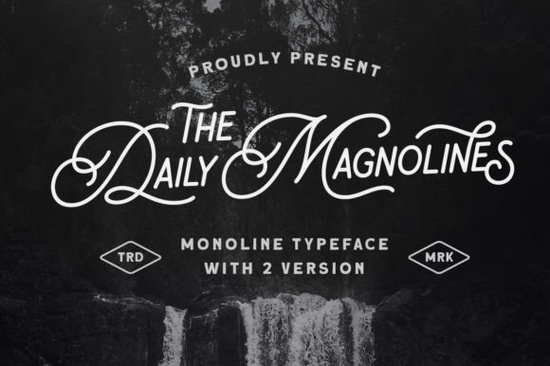
If you're looking for a display font that balances elegance with a handcrafted feel, Daily Magnolines Font might be exactly what your next project needs. Designed with clean monoline strokes and a subtly textured alternate version, it brings warmth and personality without sacrificing readability. Whether you’re designing wedding invitations, branding a boutique product line, or creating eye-catching social media posts, this typeface adapts smoothly across both print and digital formats.
What sets Daily Magnolines apart is its dual personality: the standard version offers crisp, modern lines perfect for clean layouts, while the rough variant adds just enough organic texture to feel artisanal ideal for projects that benefit from a tactile, human touch. It’s especially useful for small businesses and crafters who want their designs to stand out without leaning into overly decorative or trendy styles.
When should you use Daily Magnolines in your designs?
This font shines in applications where visual impact matters but clarity can’t be compromised. Think:
- Branding materials like logos, business cards, or packaging for lifestyle, beauty, or food brands
- Event stationery such as wedding suites, baby shower invites, or holiday cards
- Social media graphics that need a refined yet approachable headline font
- Print-on-demand products like mugs, tote bags, or wall art where typography carries the message
Because it’s a monoline font (meaning consistent stroke width), it scales well from tiny labels to large posters without losing its character. And unlike script fonts that can become illegible at small sizes, Daily Magnolines remains sharp and legible even in compact layouts.
How does it compare to other display fonts?
Not all display fonts offer the same balance of style and usability. For example, if you’ve used something like Brother Garage, you know it leans into a bold, industrial vibe great for masculine or retro themes, but not ideal for delicate or upscale aesthetics. On the other hand, Thick Jungle brings playful, rounded energy that works well for kids’ products or casual branding.
Daily Magnolines sits comfortably in the middle: contemporary but timeless, structured but not rigid. If you prefer something with more edge, Punk Cyber delivers high-contrast futurism, while University Font offers collegiate charm. But when your goal is understated sophistication with room for creative expression, Daily Magnolines stands out for its versatility.
Tips for pairing Daily Magnolines with other typefaces
Since it’s a display font, Daily Magnolines works best as a headline or accent typeface not for long paragraphs. Pair it with a clean, neutral sans-serif (like Montserrat, Lato, or Inter) for body text to maintain readability and visual hierarchy. Avoid pairing it with other highly stylized fonts; the goal is contrast, not competition.
If you’re using the rough version, keep backgrounds simple light textures or solid colors let the subtle imperfections shine without overwhelming the design. For digital use, test how it renders on different screens; sometimes slight adjustments to tracking (letter spacing) improve legibility at smaller sizes.
Who is this font really for?
Daily Magnolines is especially practical for:
- Small business owners creating their own marketing assets
- Etsy sellers designing printable templates or product mockups
- Graphic designers building brand identities that require a custom-but-accessible look
- Hobbyists making personalized gifts or home decor
It doesn’t require advanced design skills to use effectively. Even beginners can achieve polished results by sticking to simple layouts and thoughtful color choices.
Before you download, consider your project’s tone. If you’re aiming for something warm, refined, and just a little bit artistic without going full calligraphy this font delivers reliably.
Quick checklist before using Daily Magnolines
- ✅ Confirm your project needs a display font (not body text)
- ✅ Decide between the smooth or rough variant based on your aesthetic
- ✅ Pair it with a simple, readable sans-serif for supporting text
- ✅ Test print or screen output at actual size to check legibility
With its blend of modern structure and gentle texture, Daily Magnolines offers a smart, flexible solution for creatives who value both form and function.